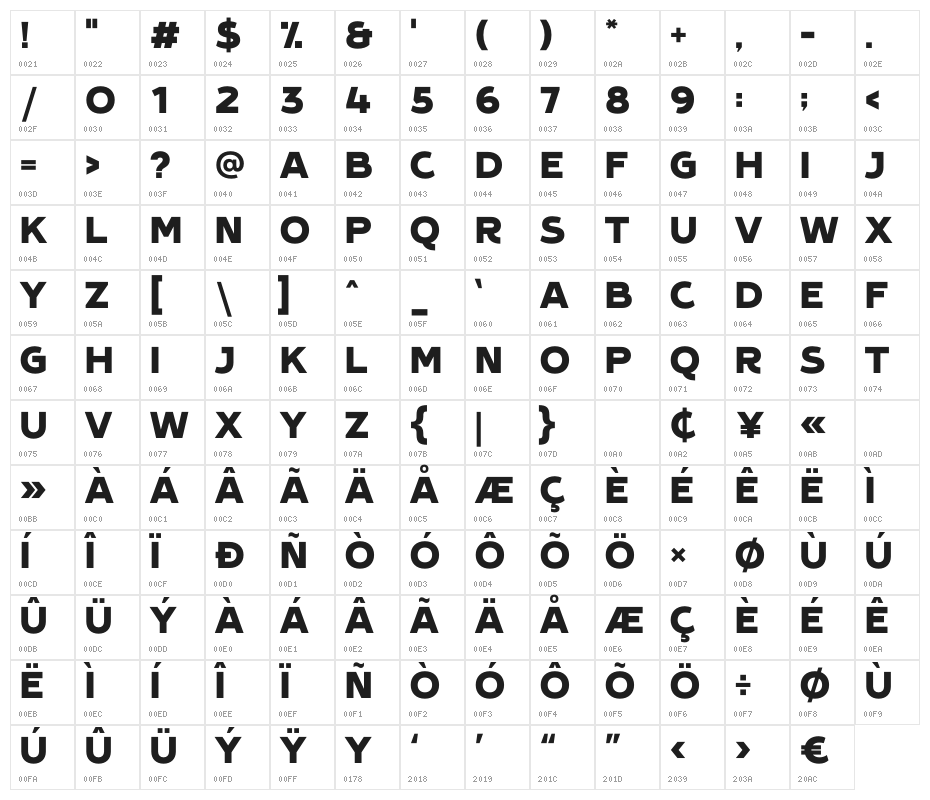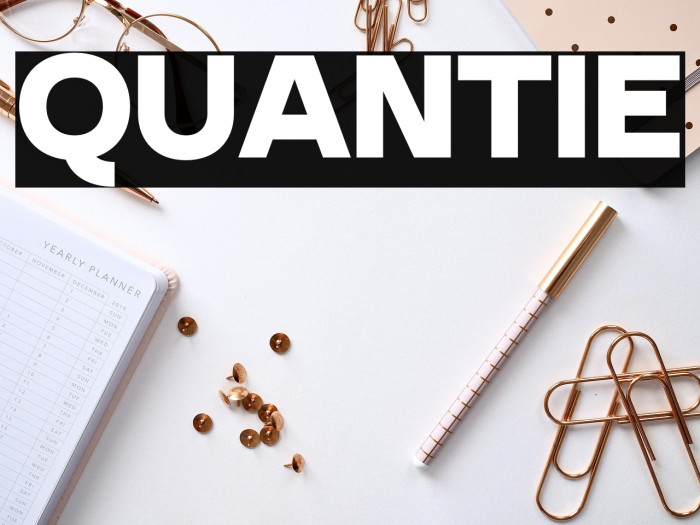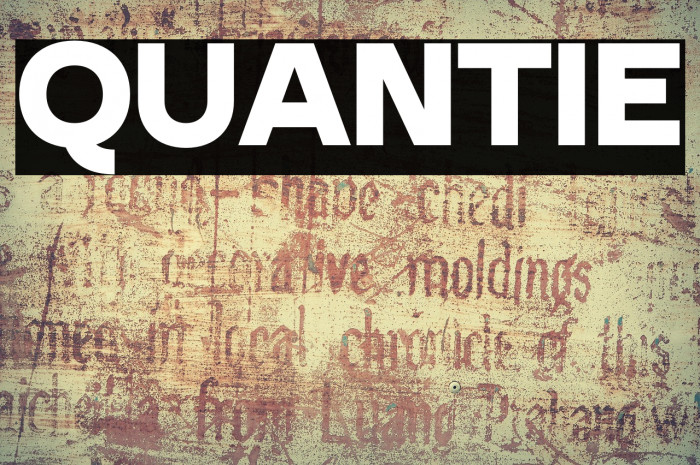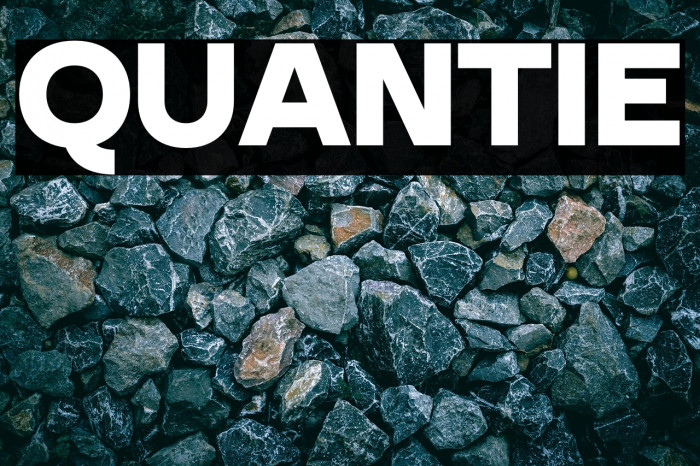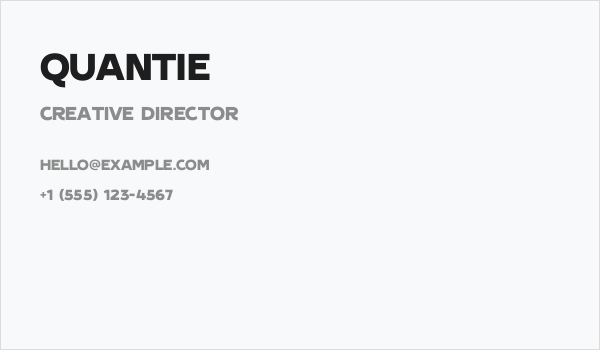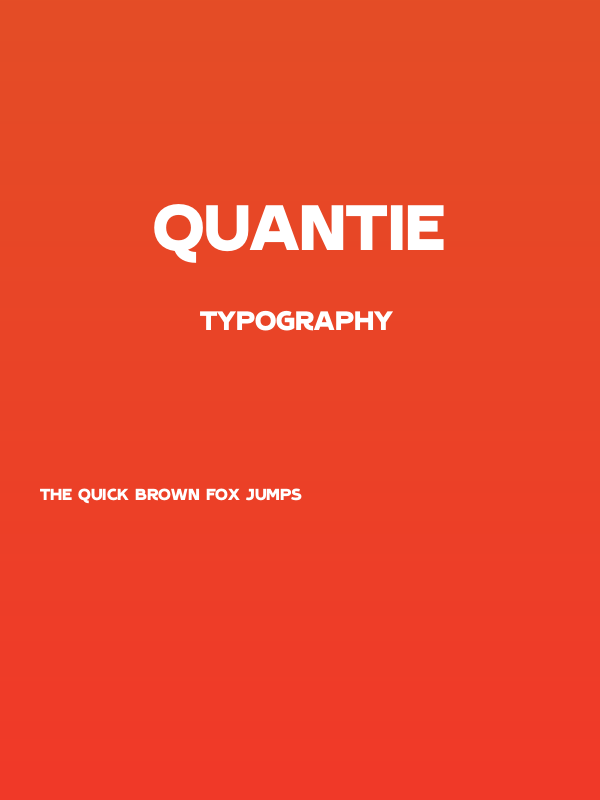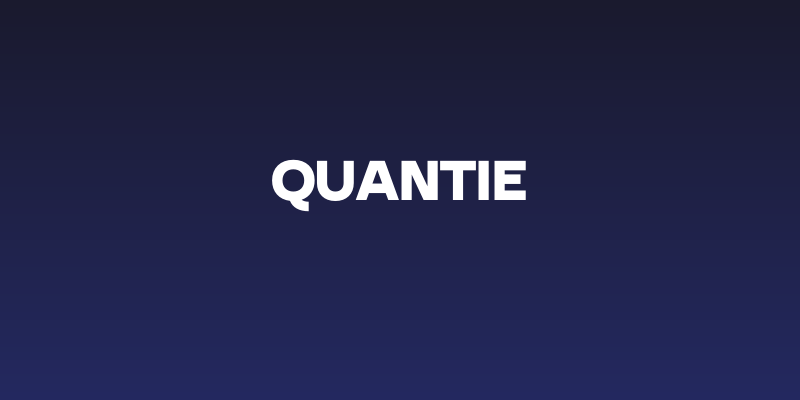
Quantie Font
Quantie Description
This font features bold, geometric letterforms with a strong presence. The characters are uniformly weighted, providing a consistent and modern appearance. The uppercase letters are particularly striking, with clean lines and sharp angles that convey a sense of strength and stability. The lowercase letters maintain the same boldness, ensuring readability and coherence across different text sizes. The numerals are clear and distinct, matching the overall robust style of the font. Special characters are well-integrated, maintaining the font's cohesive look. This typeface is ideal for making a bold statement in any design project.
| Proposed Projects | Ideal for branding, headlines, posters, and any design requiring a strong visual impact. |